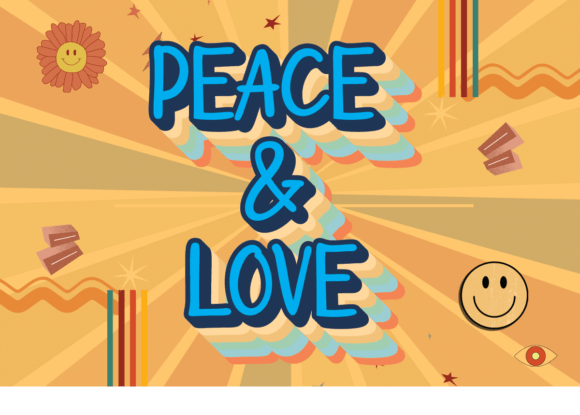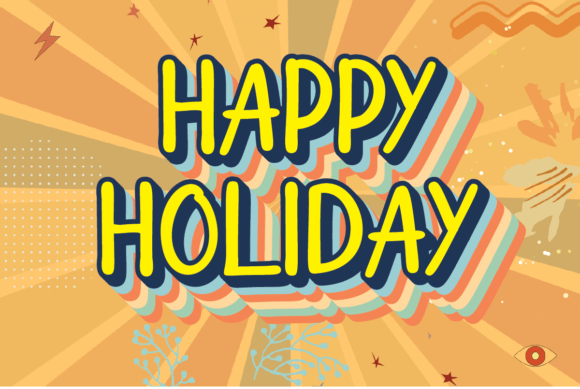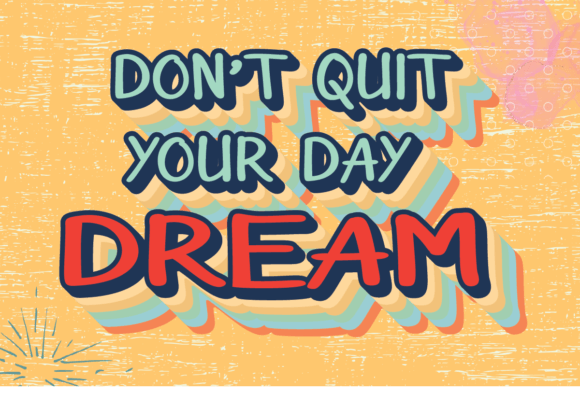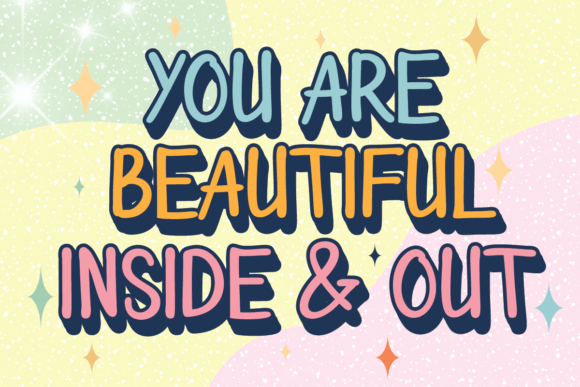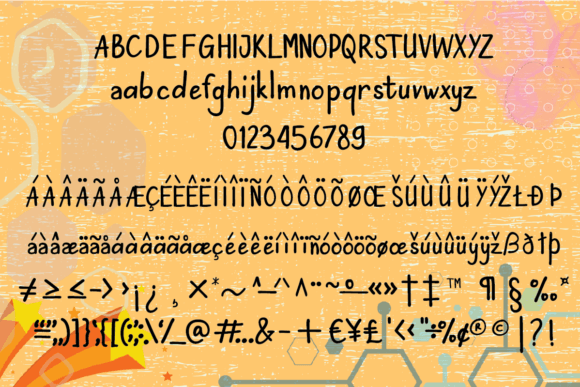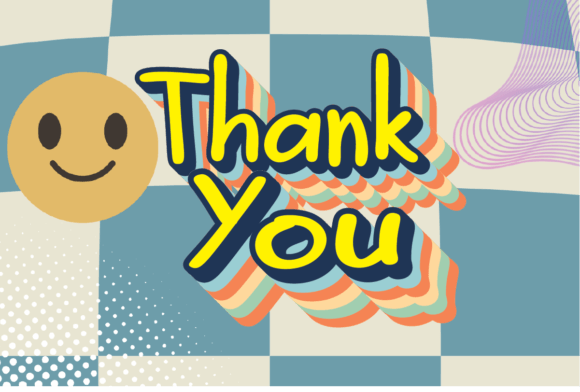
Introduction to Salihone Font
Salihone is a font that depicts the expressions of children who are learning to write, this font is perfect for those of you who need work with children’s themes or for comic themes because it looks very cheerful and legibility is easy for children to read.